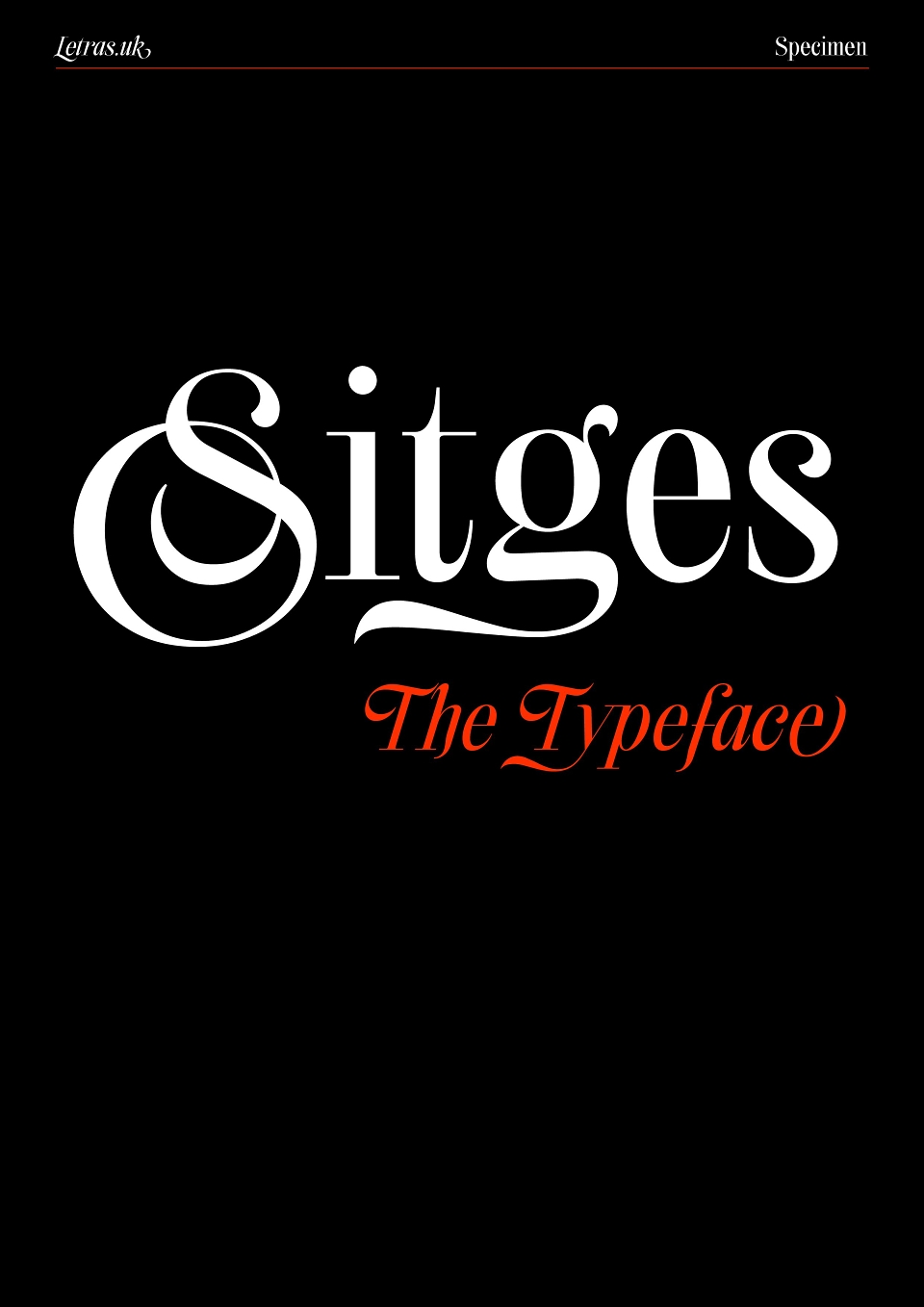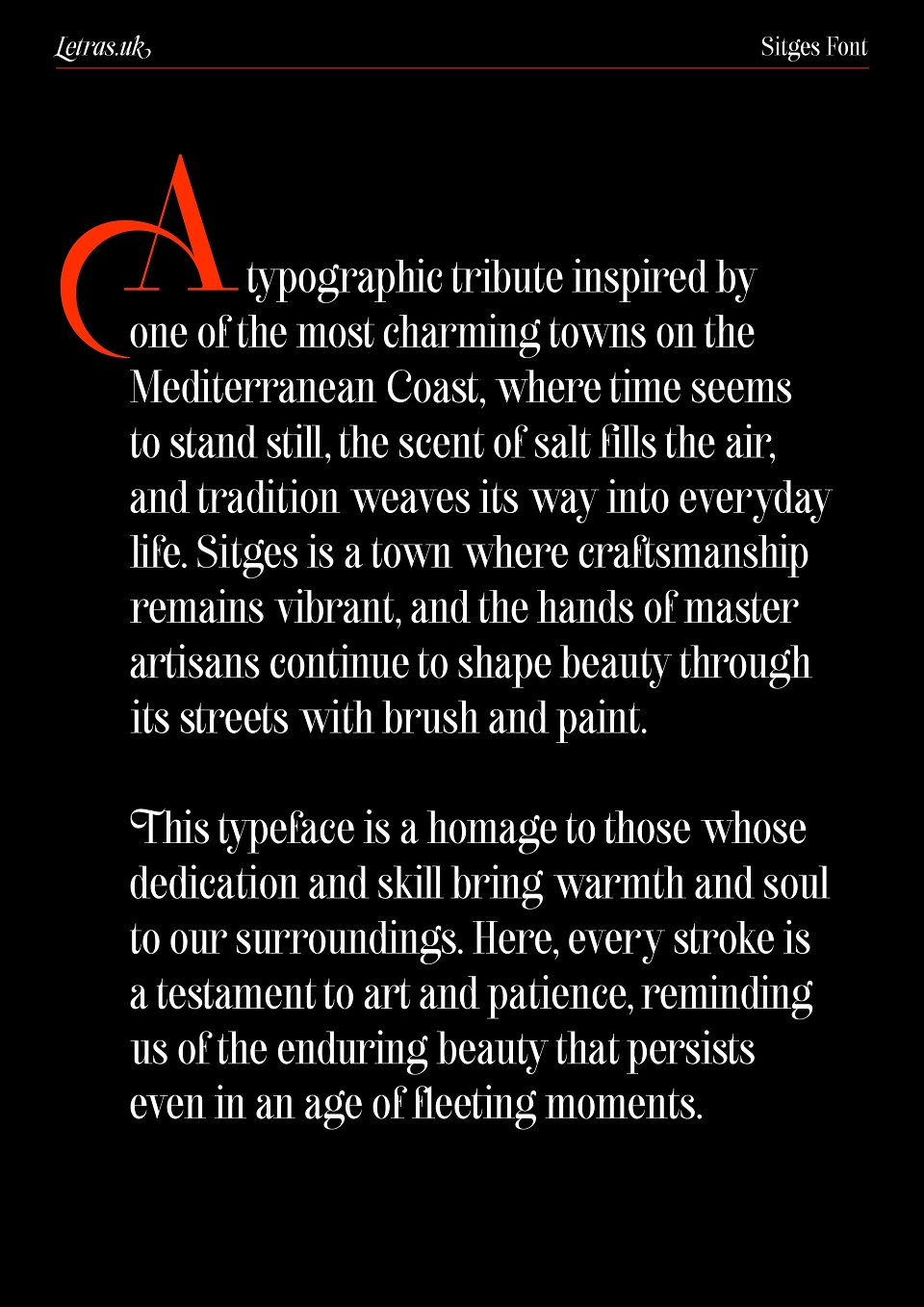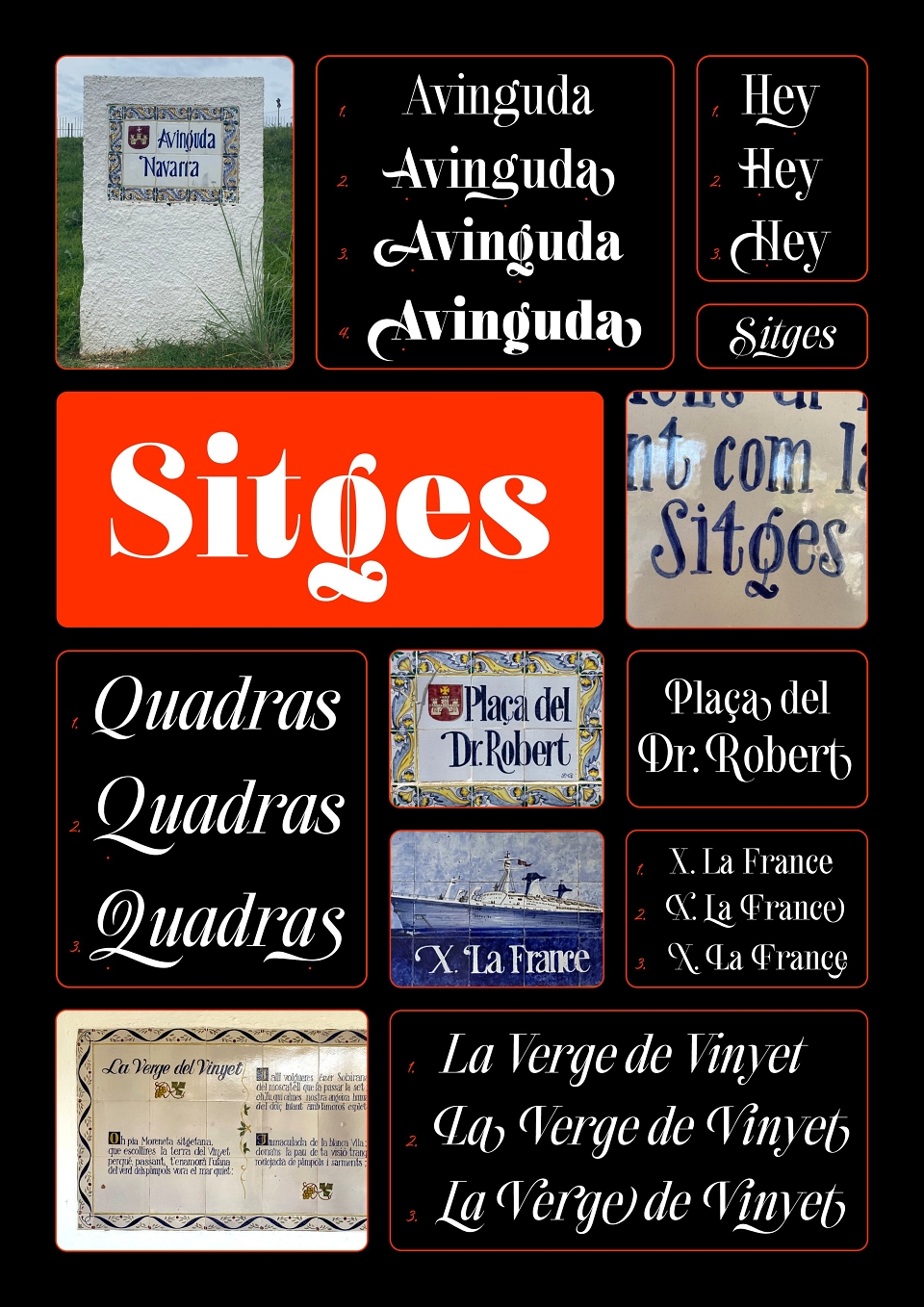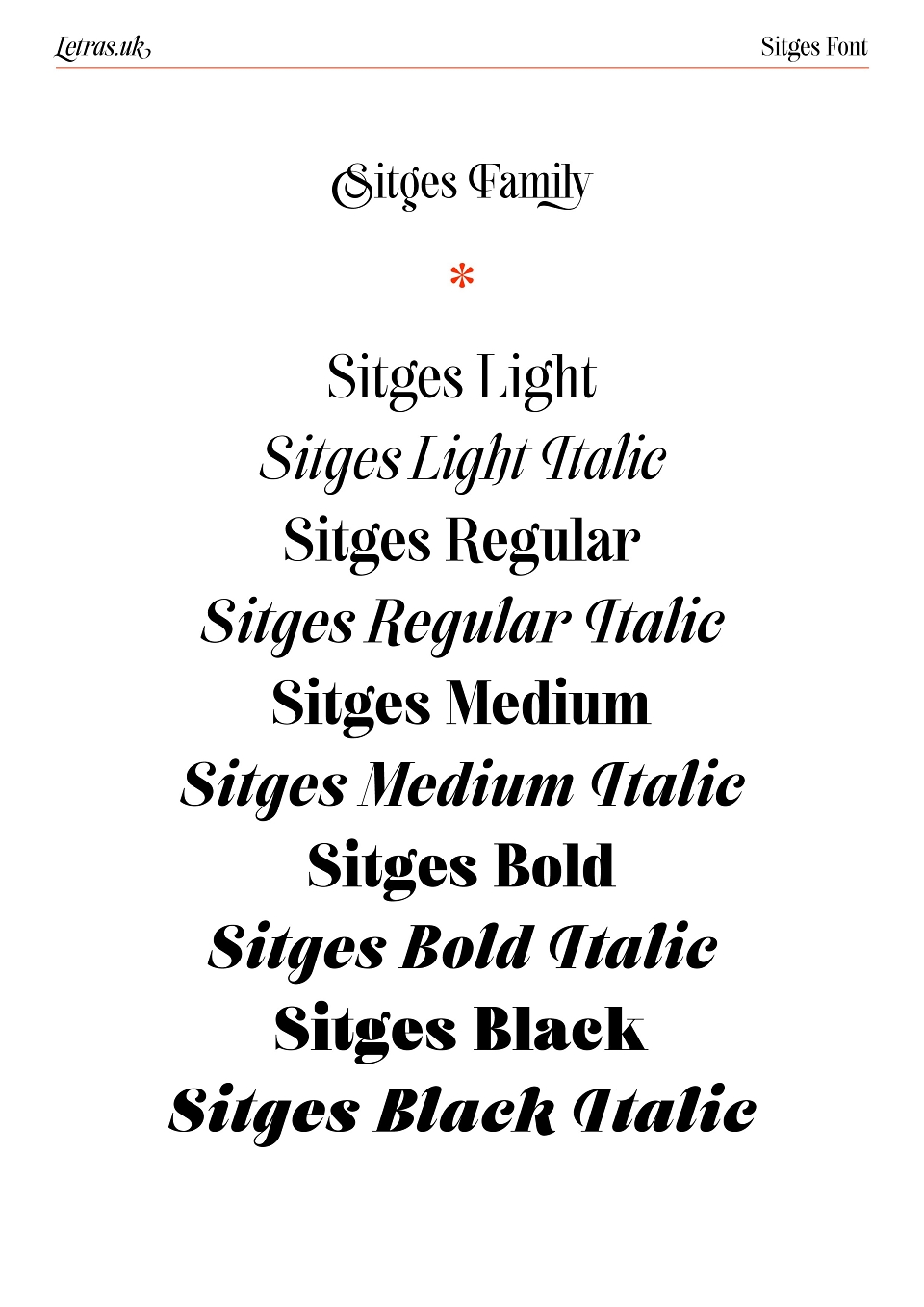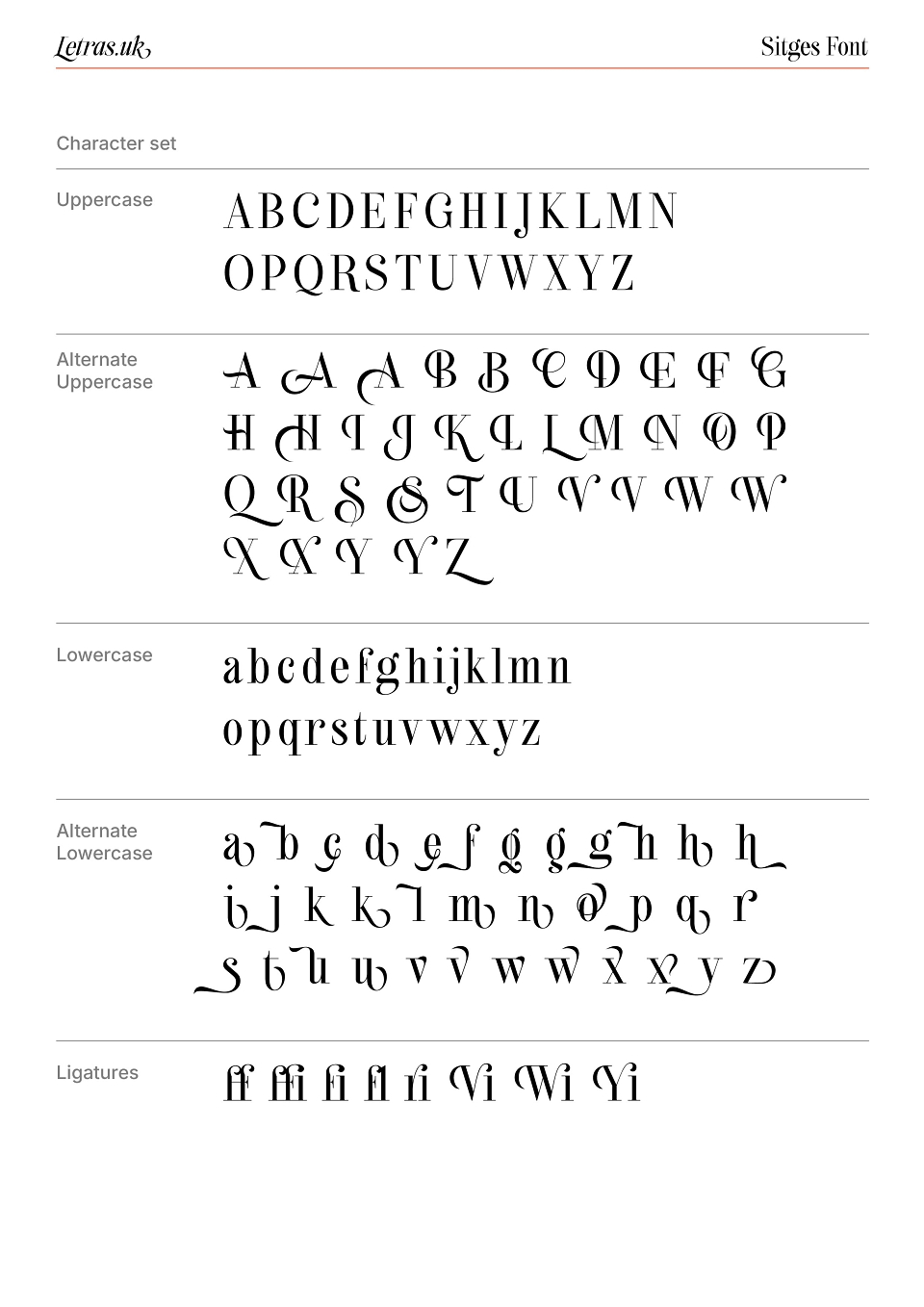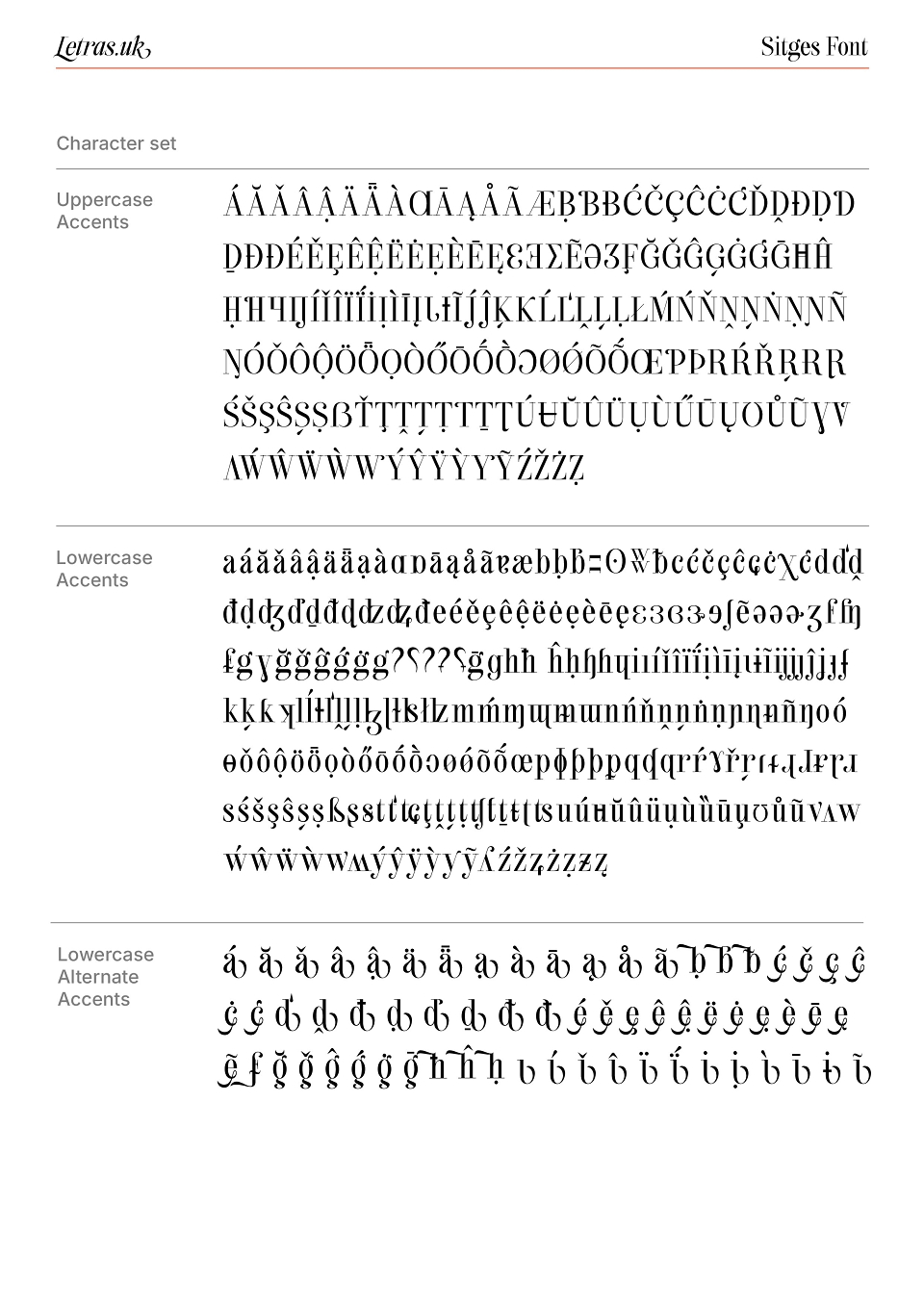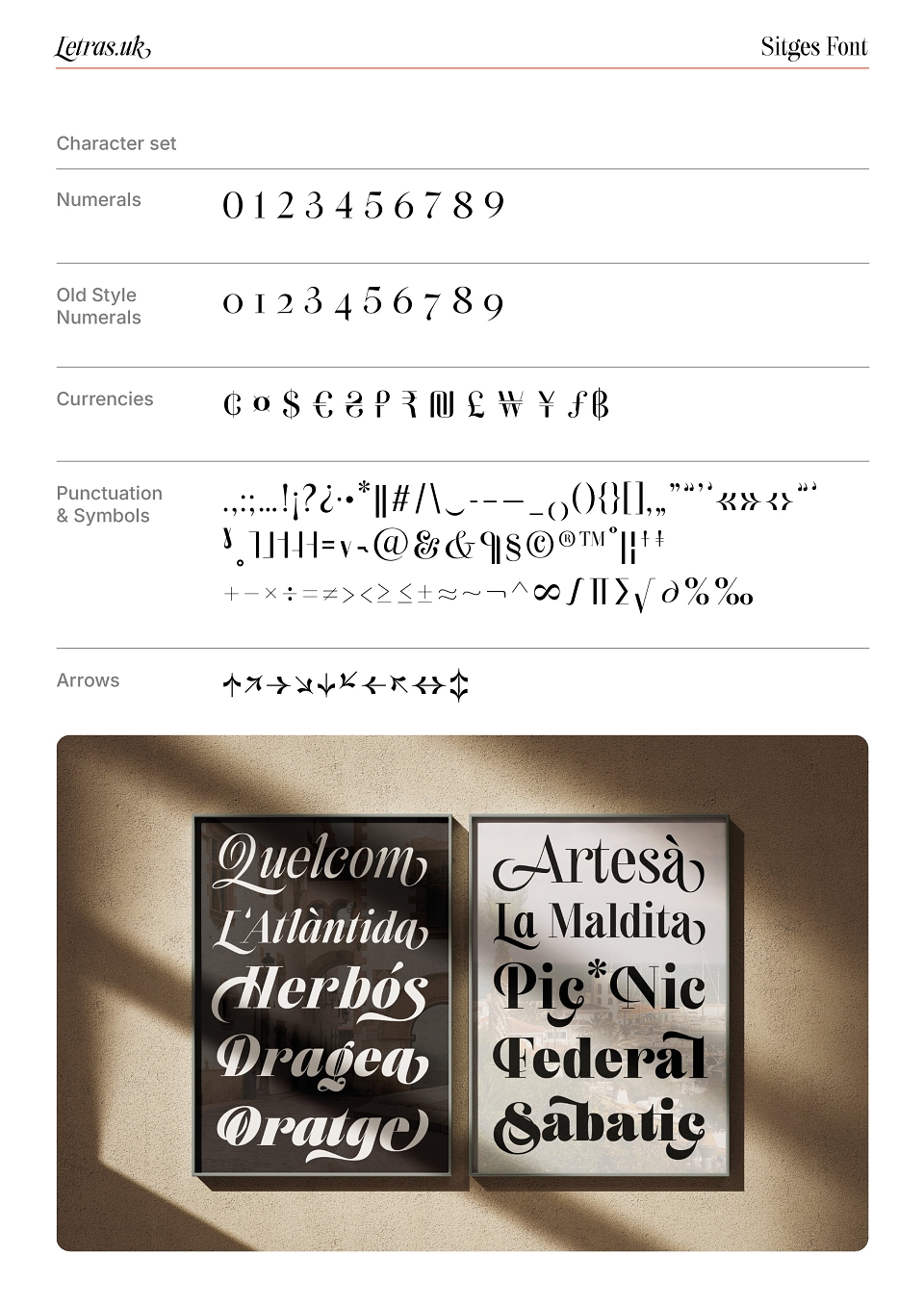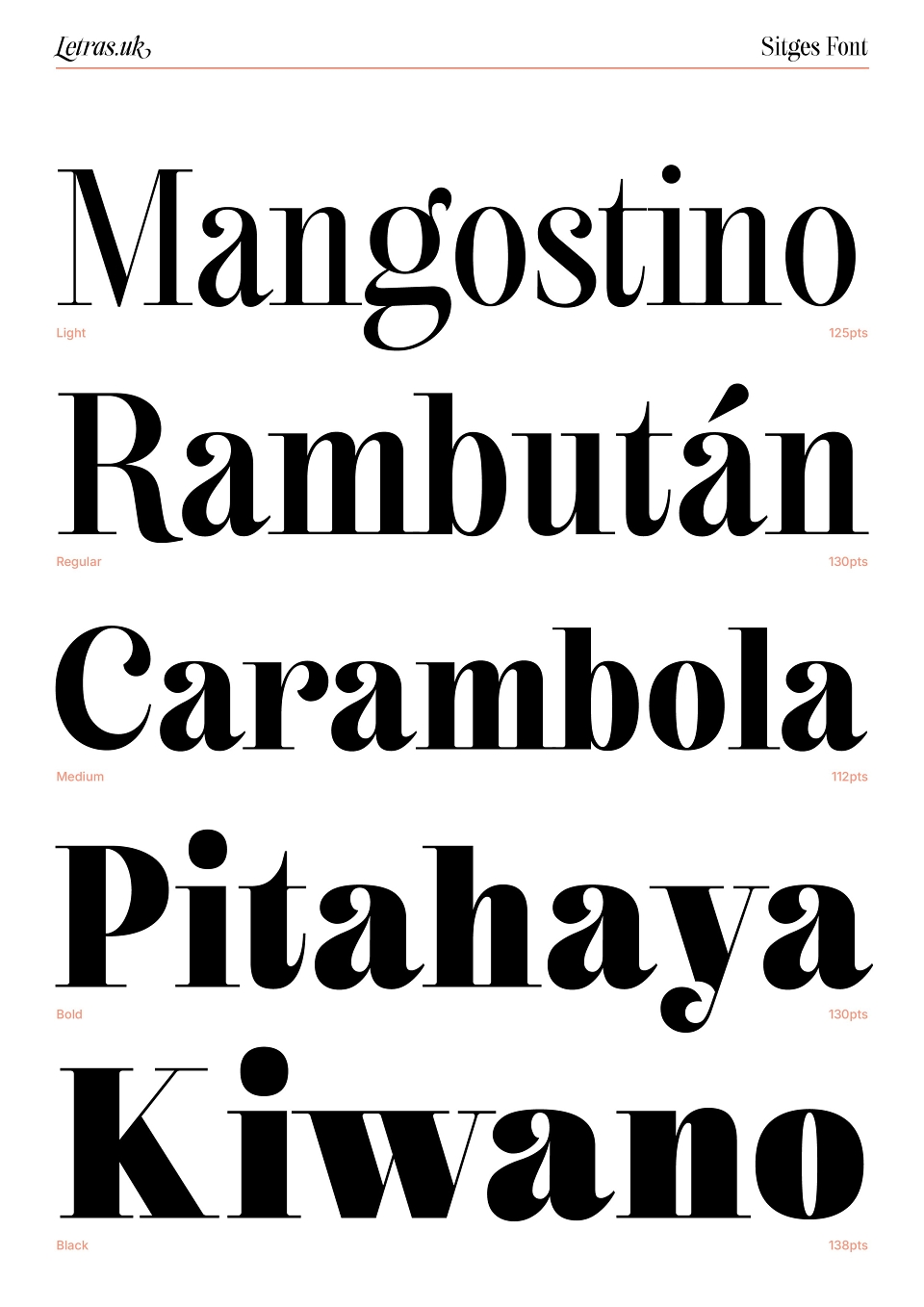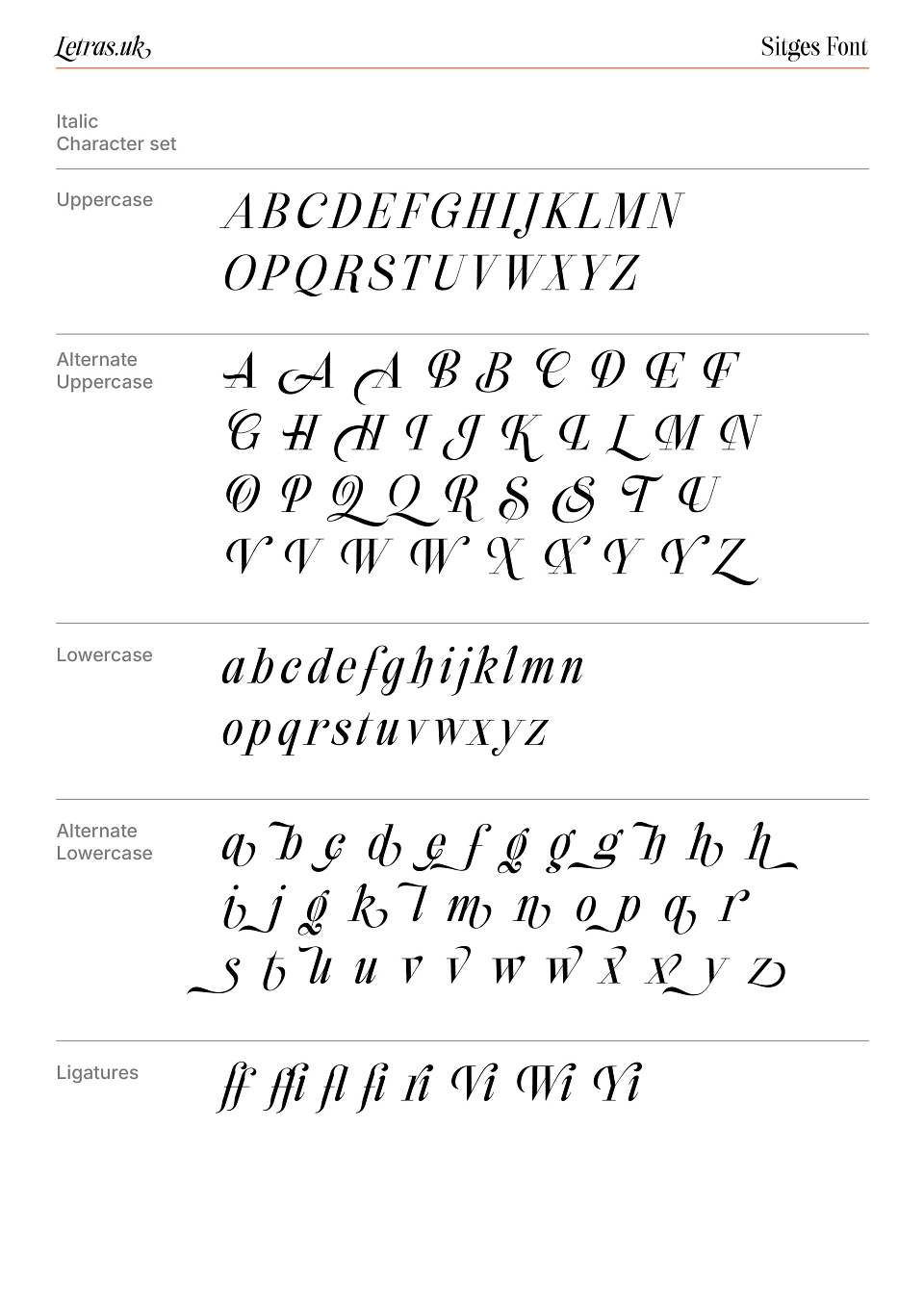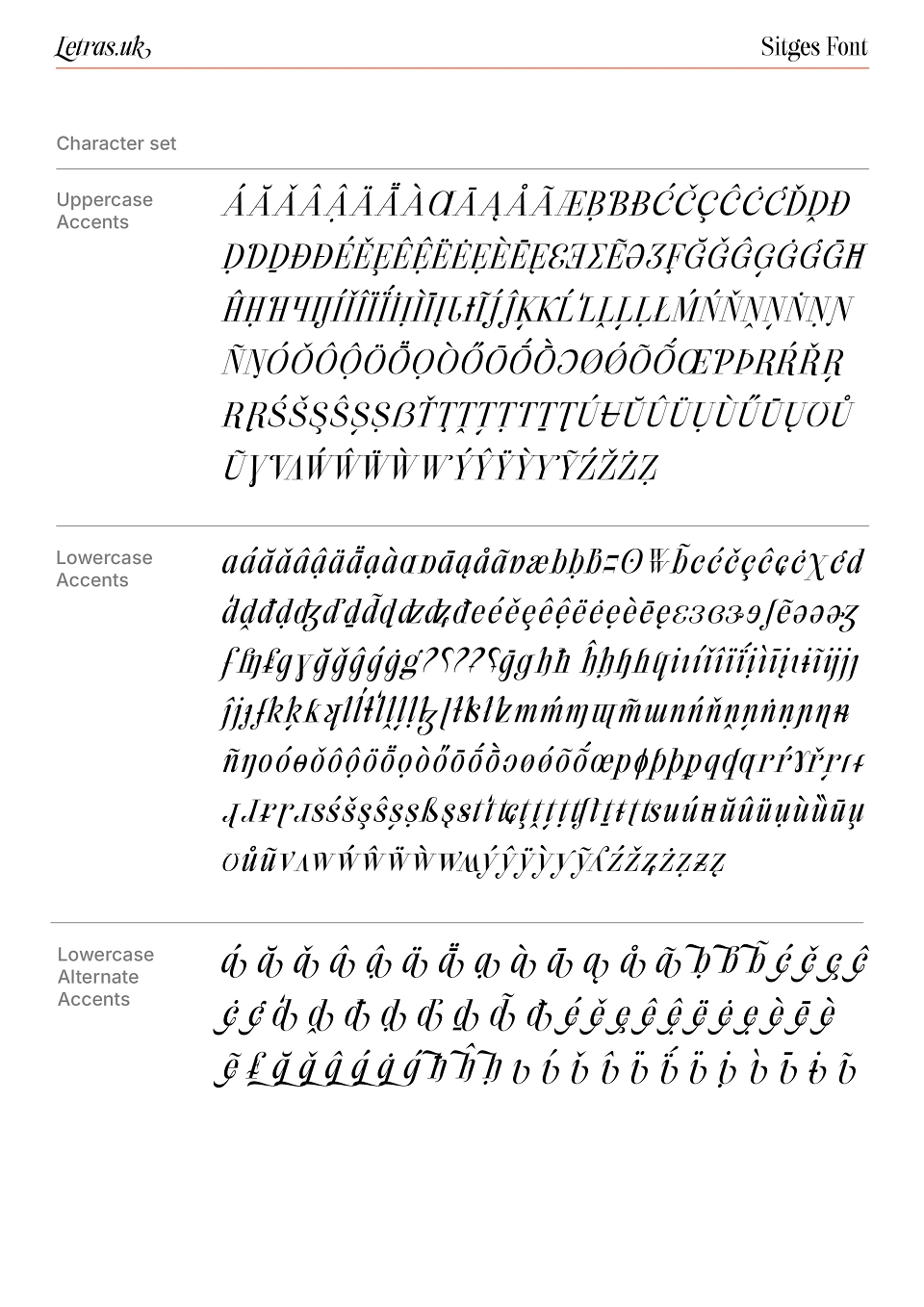
A typographic tribute inspired by Sitges, one of the most enchanting towns on the Mediterranean Coast. Walking its streets feels like stepping into a world where time slows down, and every corner is touched by the magic of its light, its people, and its traditions. Here, the hands of skilled artisans bring beauty to life as they paint signs, craft details, and leave their mark on the town’s identity. Each letter, each brushstroke tells a story of dedication, care, and timeless creativity.
This typeface is my attempt to honor their work, to capture the essence of Sitges in a design that celebrates the soul of its streets and the enduring legacy of those who shape it with their artistry.
Sitges Typeface